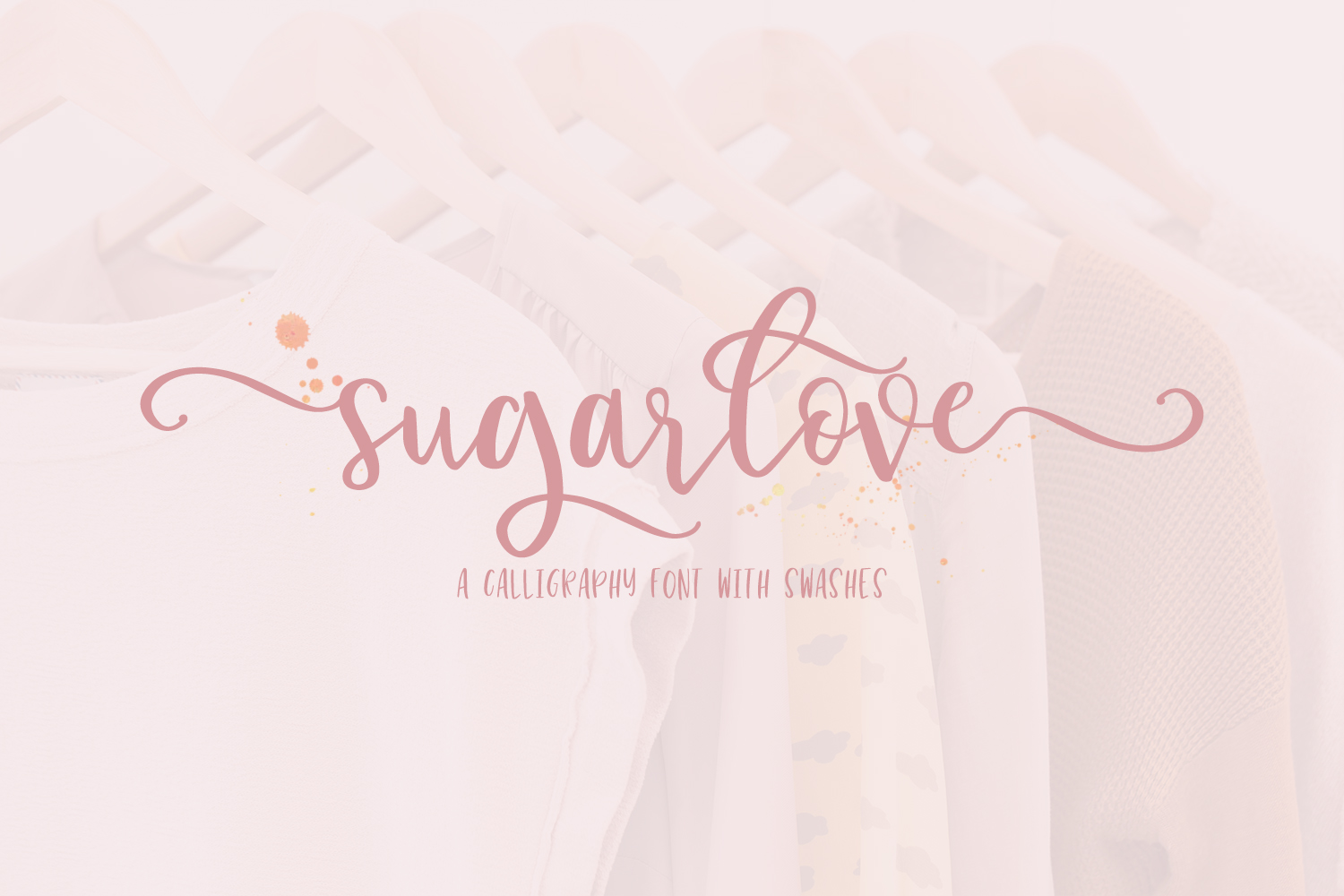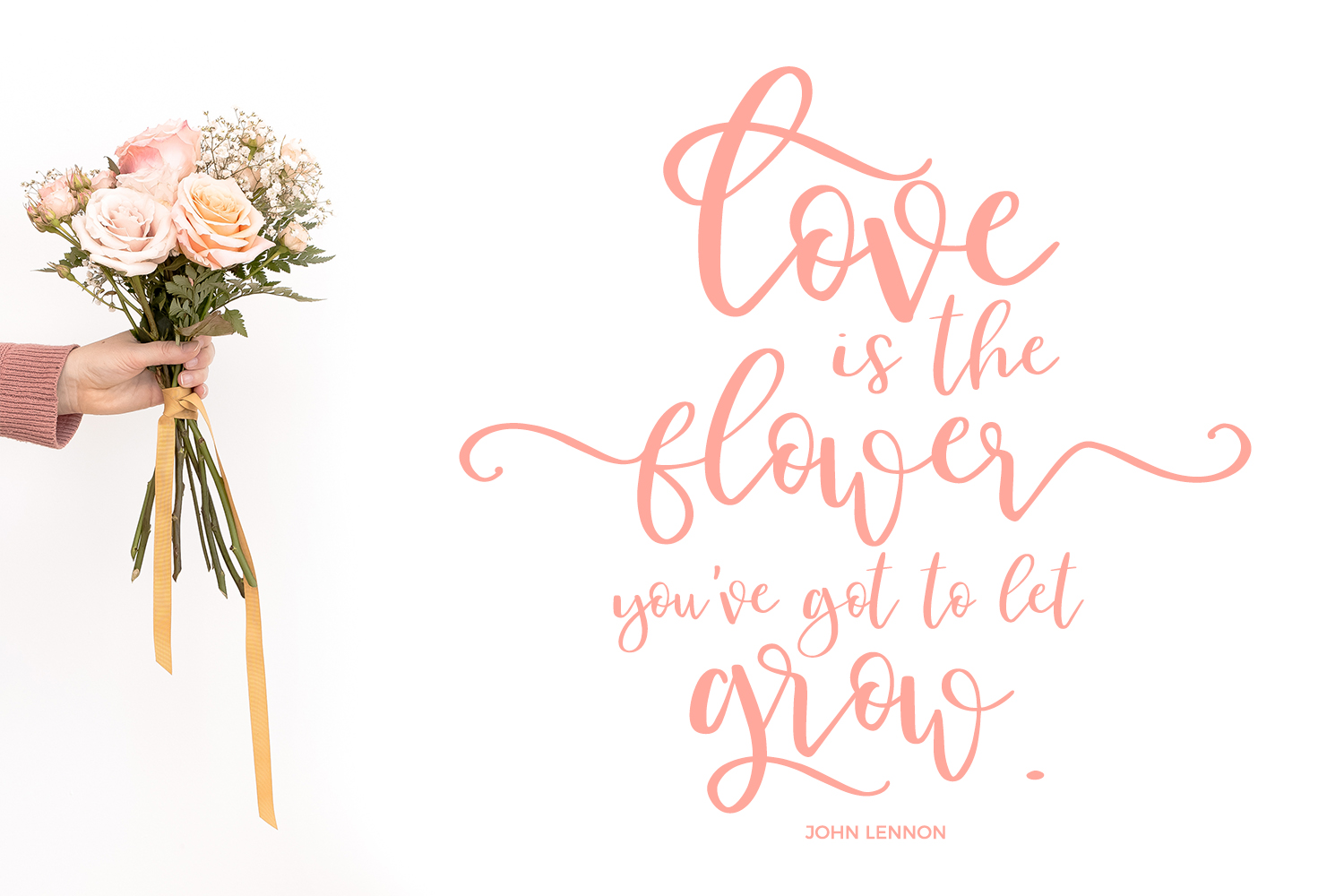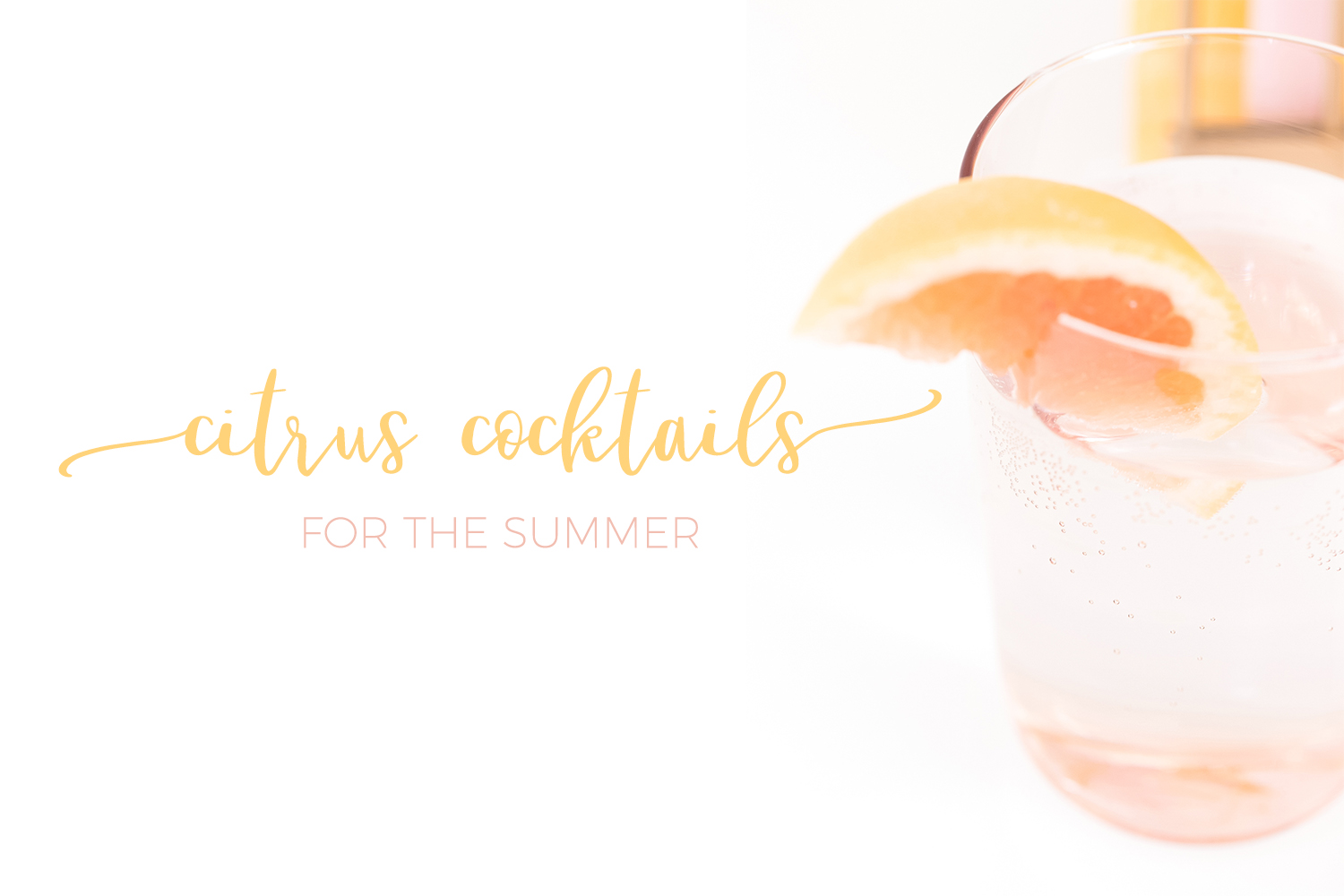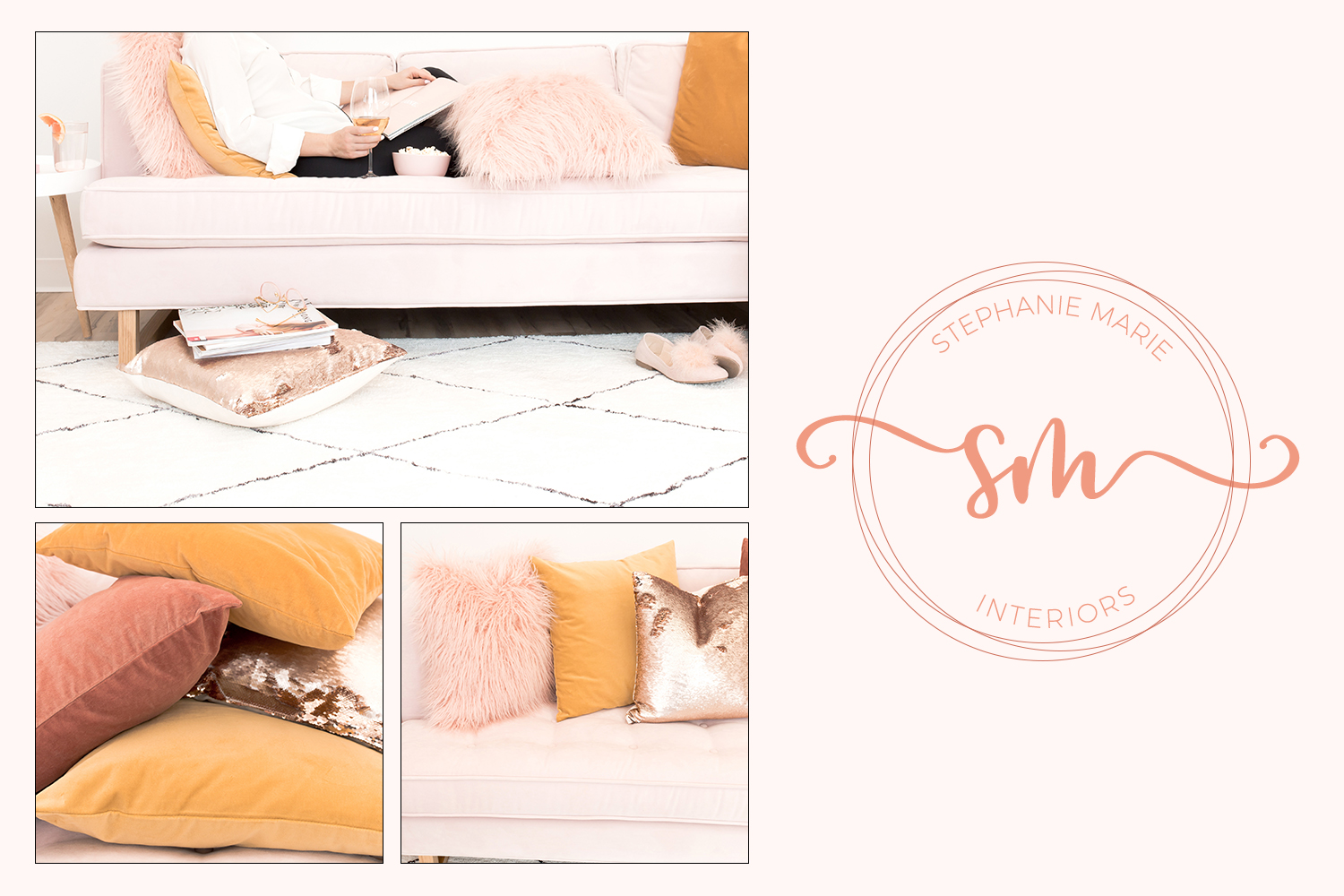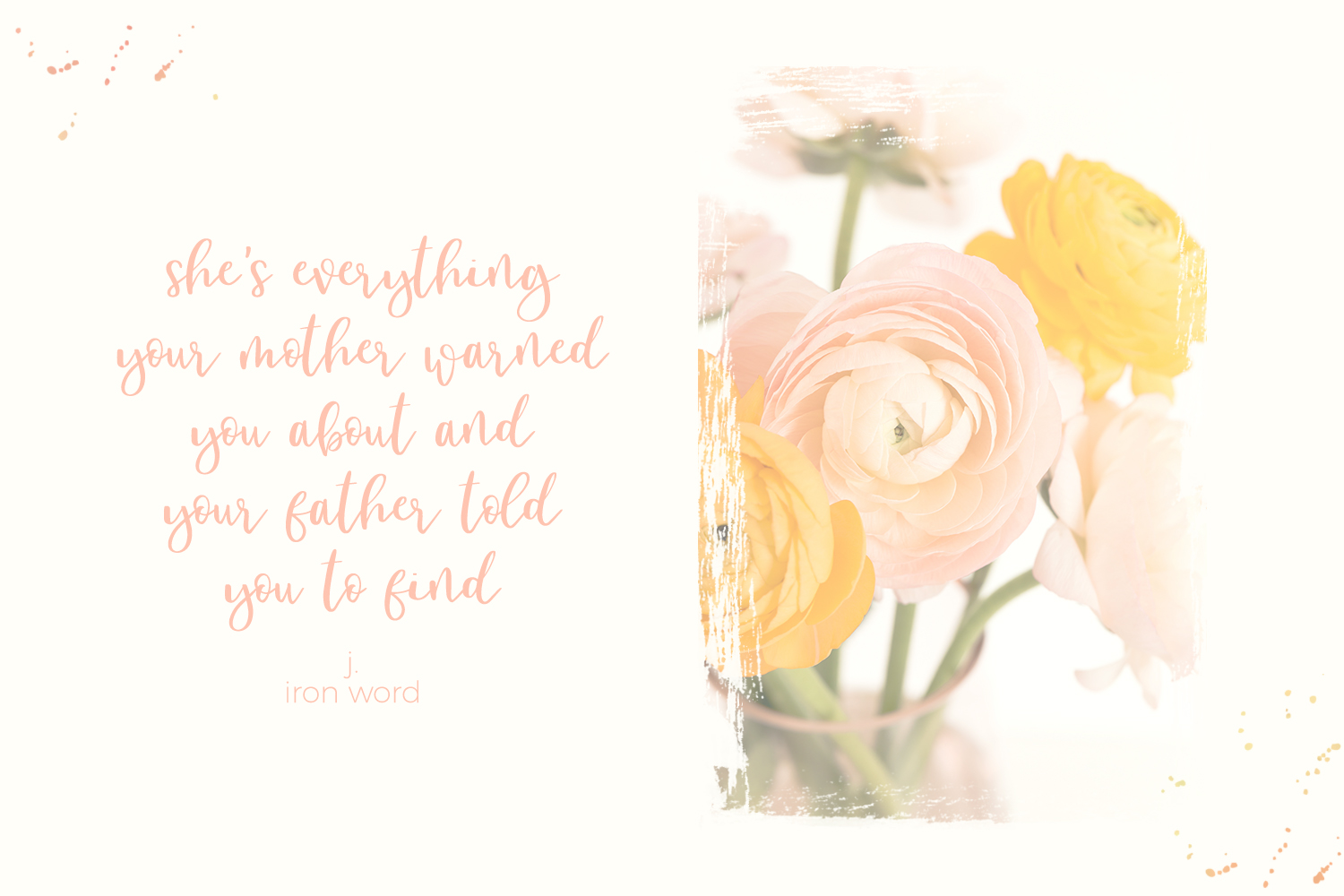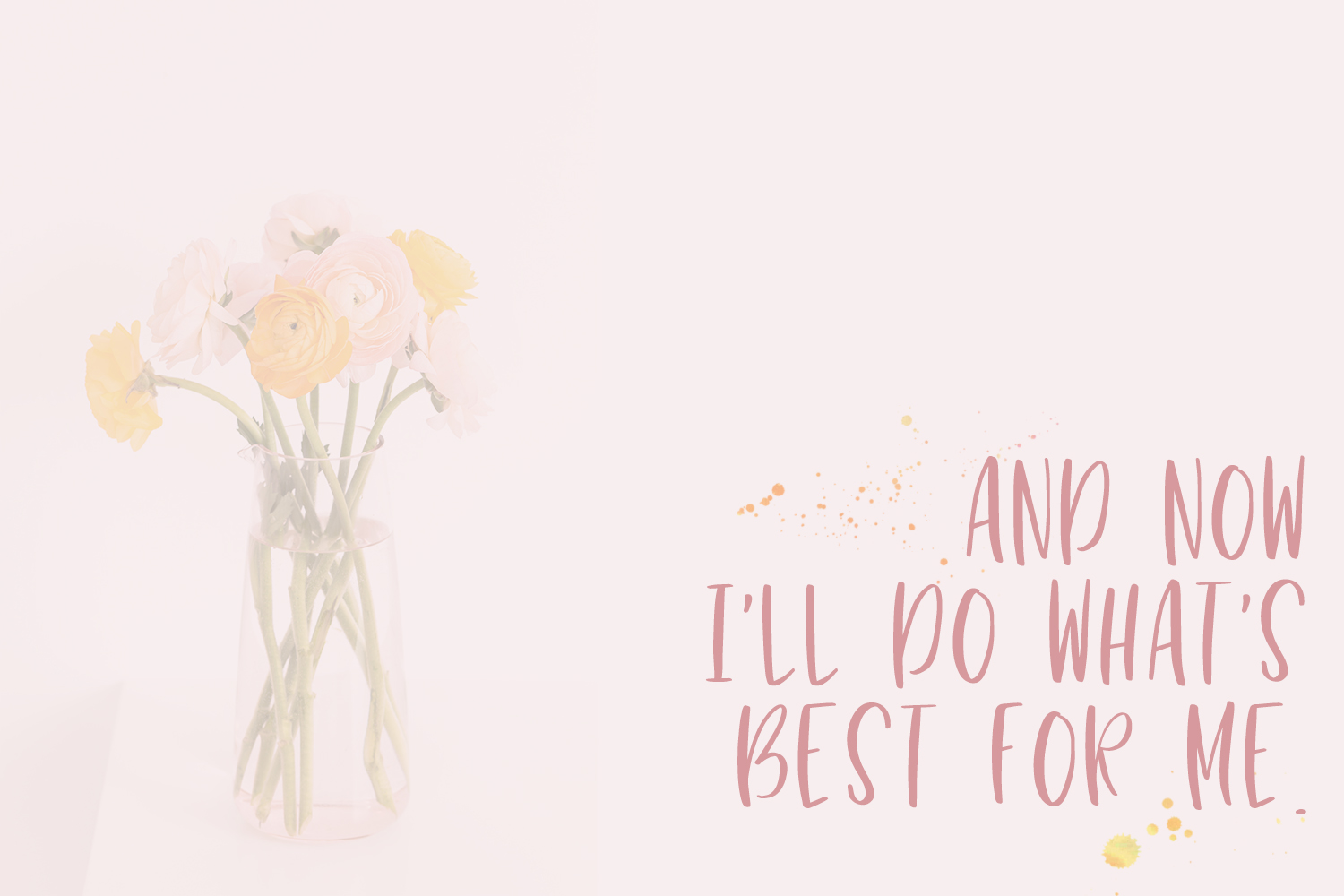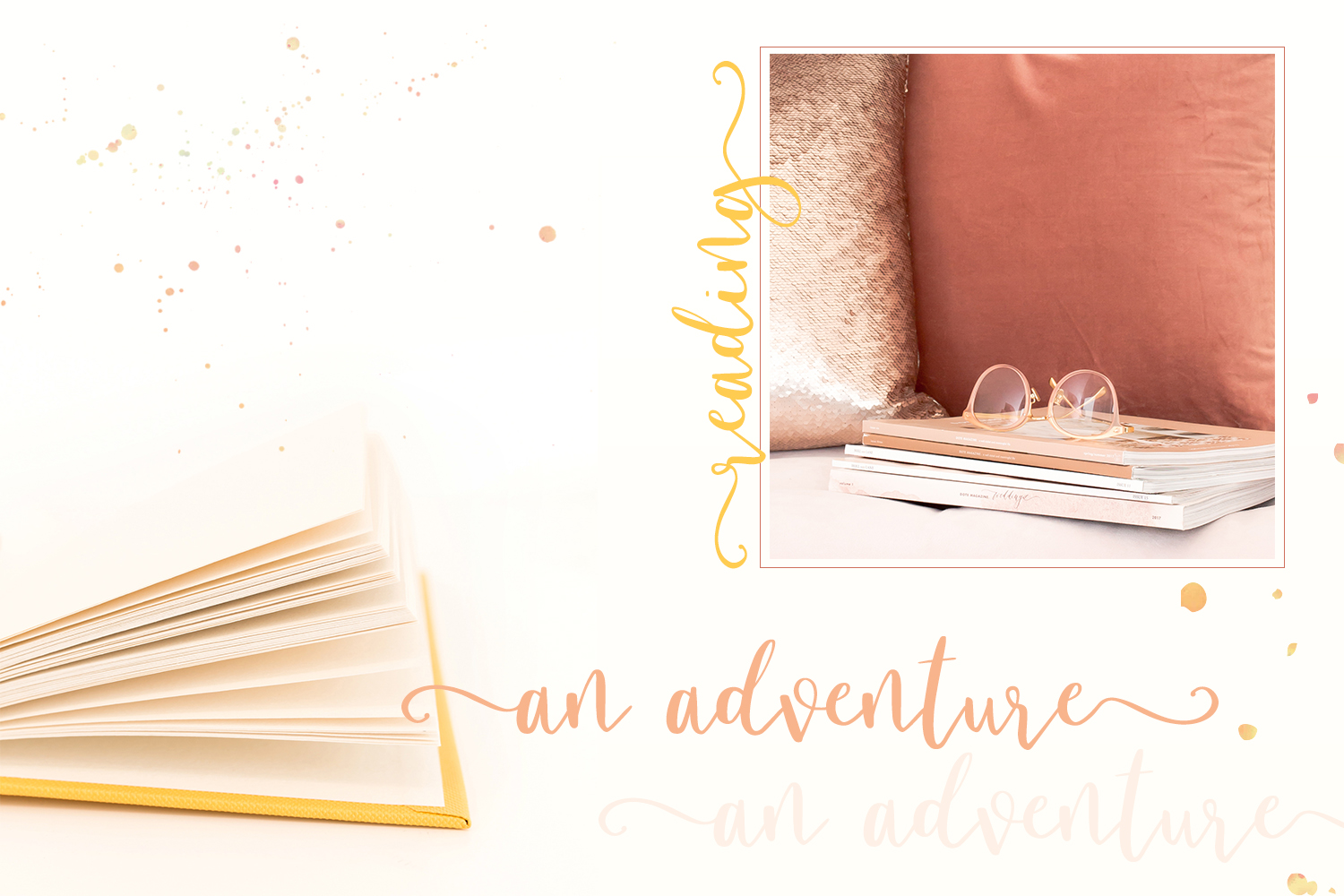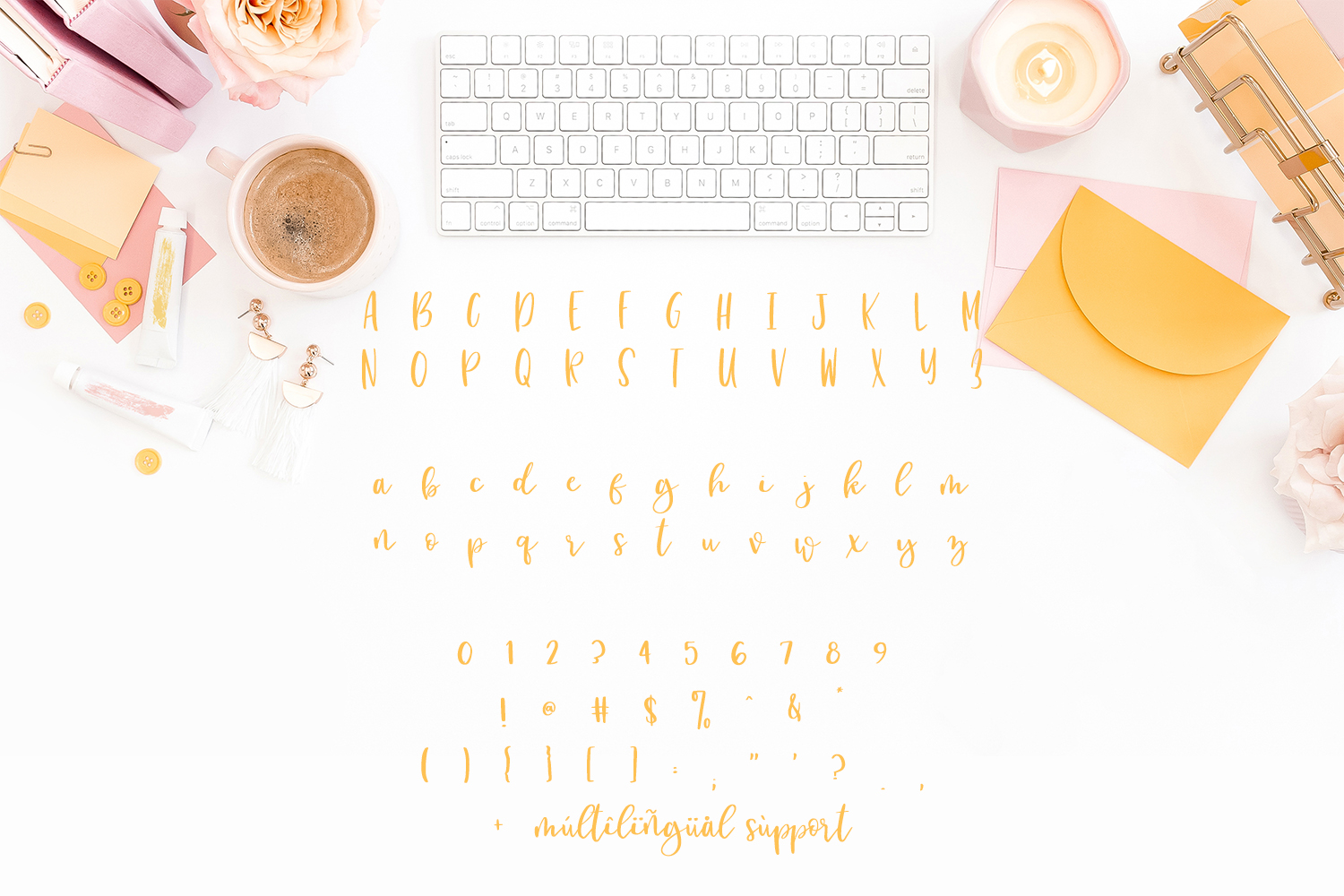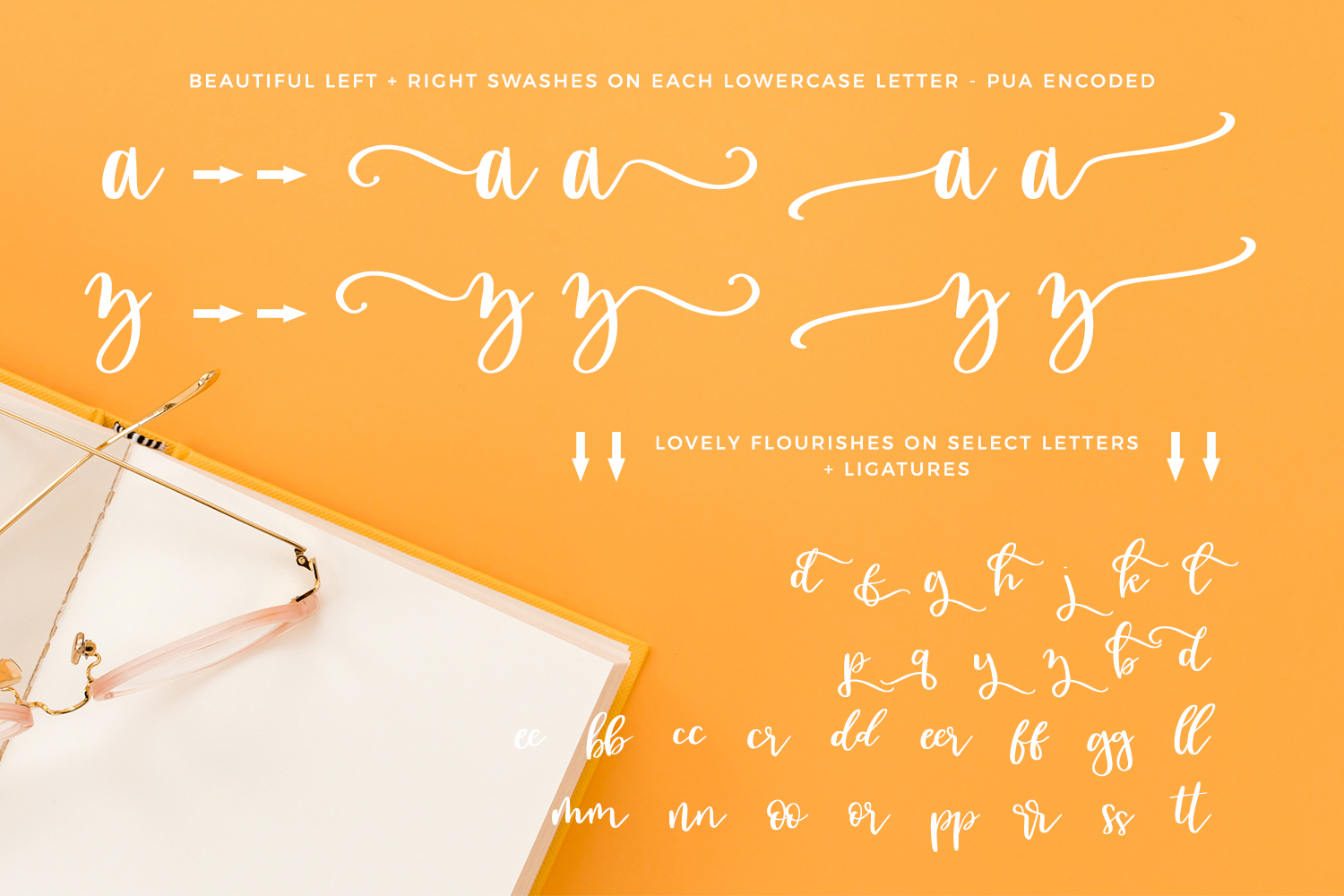
Sugarlove Font
About Sugarlove Font
Sugarlove is a hand-lettered bouncy calligraphy script. This font is warm like the summer and bright like citrus — perfect for use in feminine project types…and the caps even look fab used by themselves! Sugarlove has two different left + right swash options for each lowercase character, commonly used double letter ligatures, and beautiful flourishing on select characters.